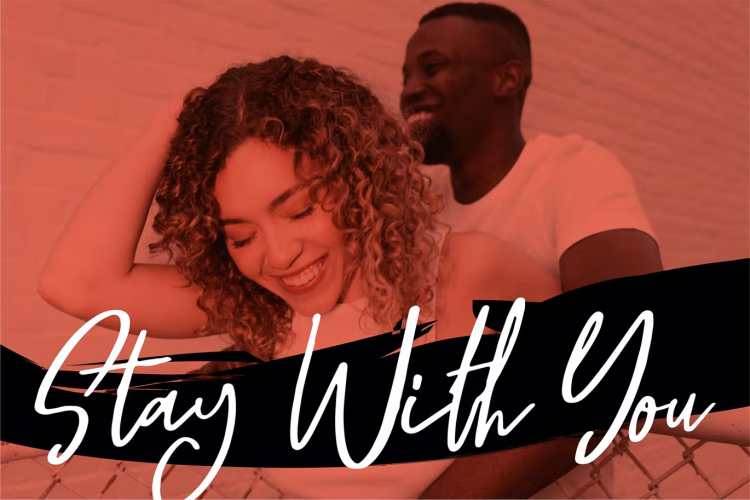
Hatsumy Beauty Signature Font
Hatsumy | Beauty Signature Font with a calligraphy style, So beautiful on invitation like greeting cards, branding materials, business cards, quotes, posters, and more!…
Hatsumy | Beauty Signature Font with a calligraphy style, So beautiful on invitation like greeting cards, branding materials, business cards, quotes, posters, and more!
Where Hatsumy Beauty Signature Font works best
Headlines and titles
Hatsumy Beauty Signature Font has enough character to carry a headline on its own; set it large and keep the supporting text plain.
Brand and product names
Short strings are where this typeface is strongest — a name, a label, a cover line.
Social and video graphics
Set Hatsumy Beauty Signature Font over a flat colour or a quiet photograph so the letterforms stay the focus.
What kind of work does Hatsumy Beauty Signature Font suit?
It sits in the Handwriting Fonts group and reads as branding, calligraphy, handwriting fonts, hatsumy. That makes it a candidate wherever those qualities help: headings, packaging, social graphics and brand work. Set it at the size you plan to use before deciding.